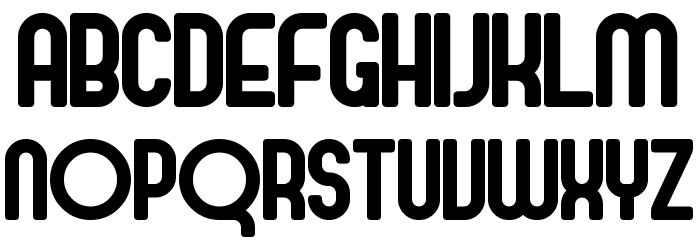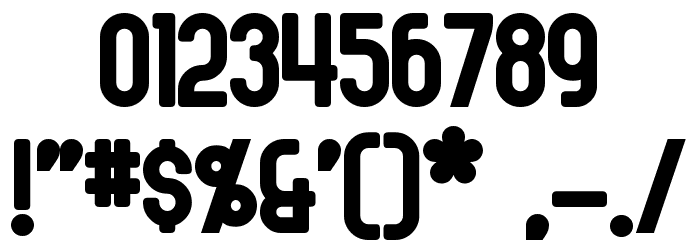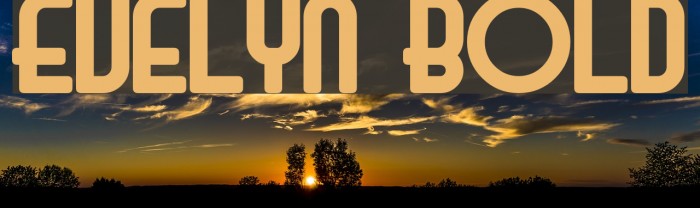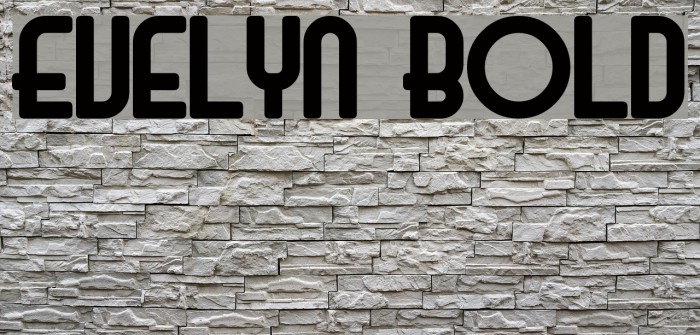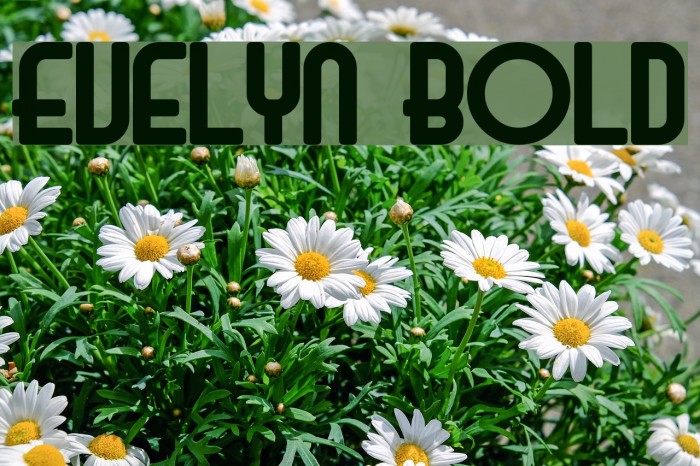
Evelyn Bold Font
This font features bold, rounded characters with a modern and playful aesthetic. The uniform stroke width and smooth curves give it a friendly and approachable appearance. The uppercase and lowercase letters maintain a consistent style, with rounded terminals and a slight geometric influence. The numerals and special characters are equally bold and rounded, ensuring readability and a cohesive look across all characters. This font is ideal for projects that require a strong visual impact while maintaining a sense of warmth and approachability.
A bold, rounded font with a modern and playful style.